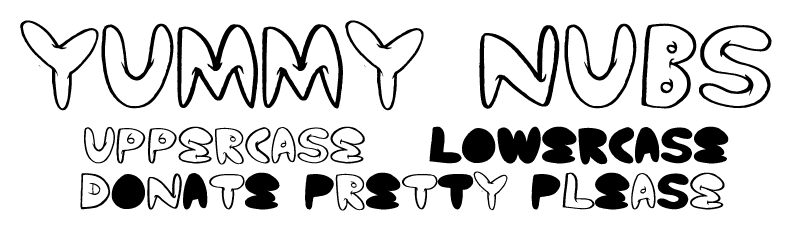
Yummy Nubs
Yummy Nubs is for your enjoyment!
5) Tips: The font works great big! some great details!
lowercase is filled in.
Yummy Nubs is an interesting name